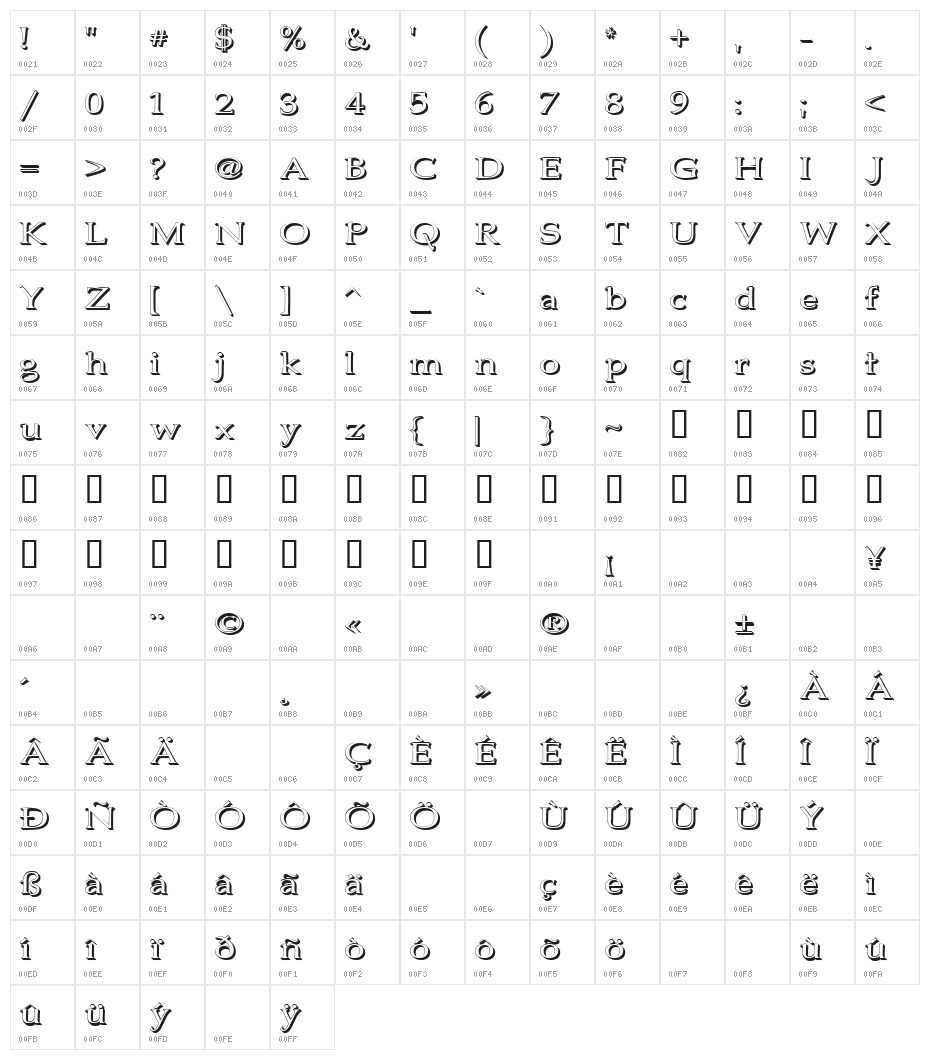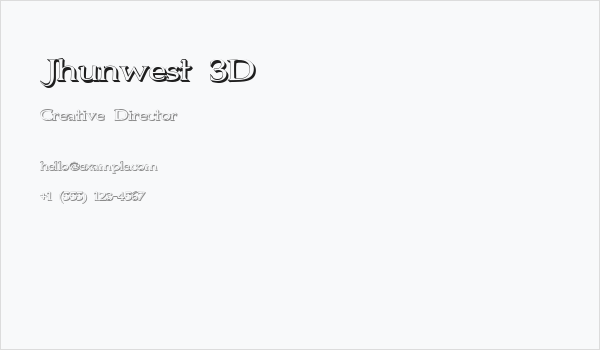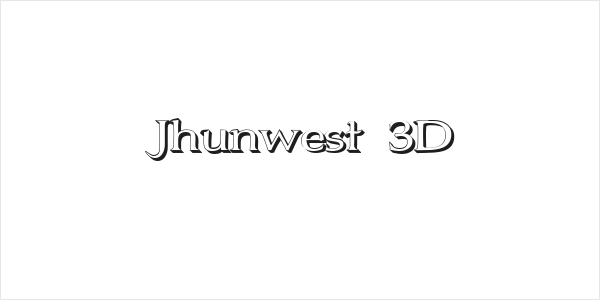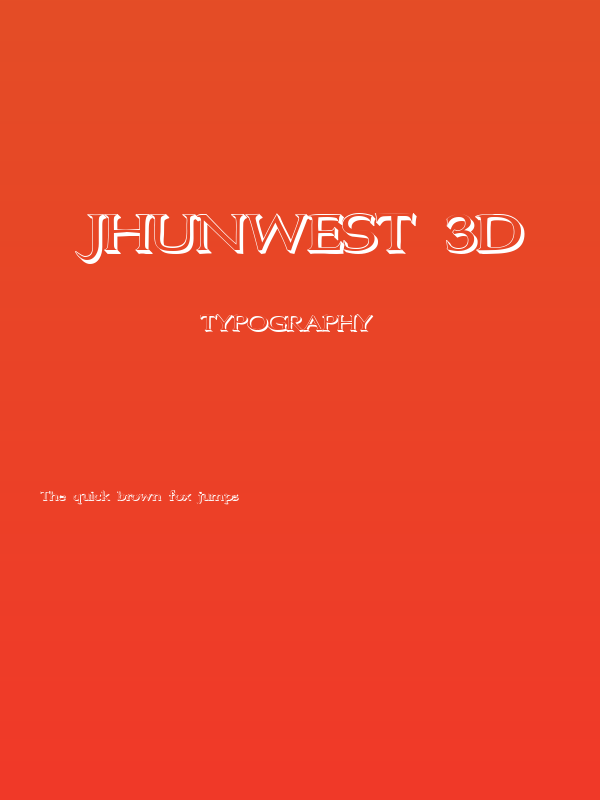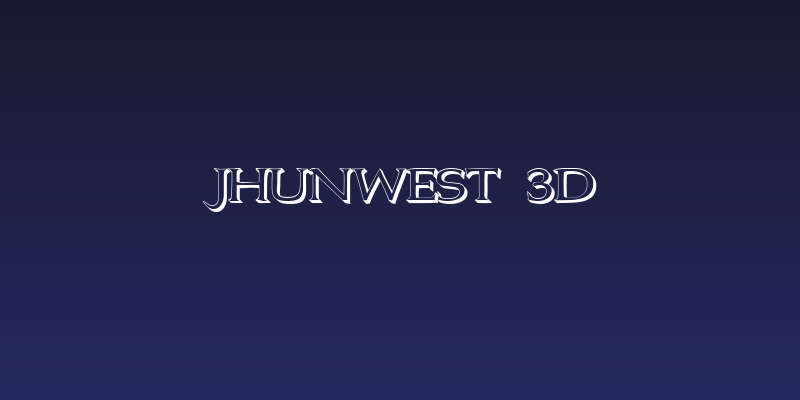
Jhunwest 3D Font
Jhunwest 3D Description
This font features a bold and striking 3D effect, giving each character a sense of depth and dimension. The letters are crafted with a strong outline and shadow, creating a visually impactful appearance. The uppercase and lowercase letters maintain a consistent style, with smooth curves and sharp edges that enhance the three-dimensional illusion. The numerals and special characters are designed to match the overall aesthetic, ensuring uniformity across all glyphs. This font is ideal for projects that require a bold statement and a modern, dynamic look.
| Proposed Projects | Ideal for logos, posters, headlines, and any design requiring a bold, eye-catching font. |